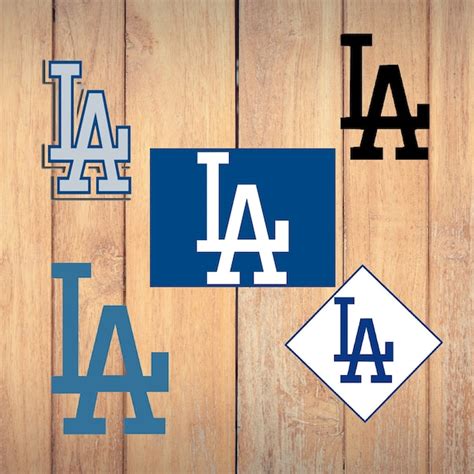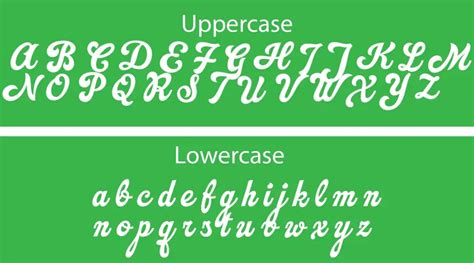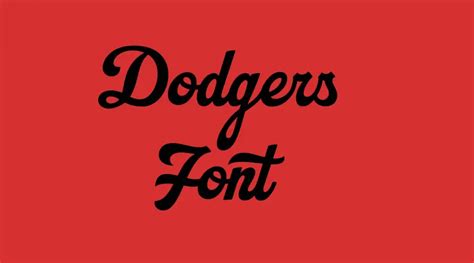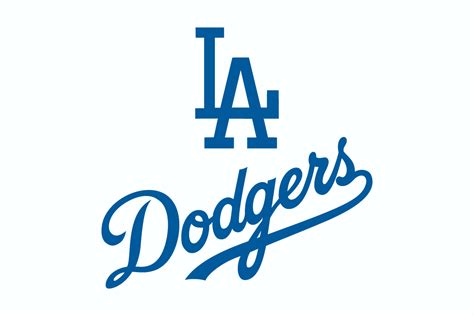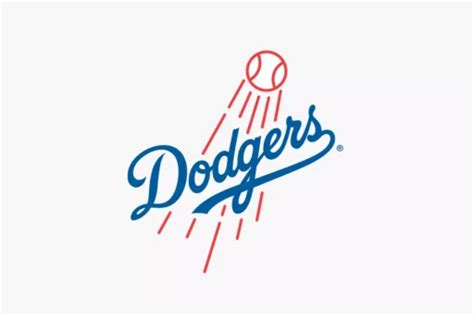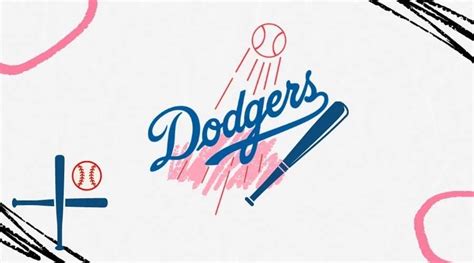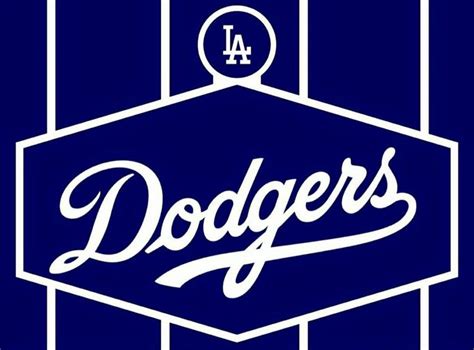
LOS ANGELES DODGERS FONT
The Los Angeles Dodgers have a rich history and a unique visual identity, which extends to their logo and branding. One of the key elements that contribute to this identity is the font used in their logo and various marketing materials. The Los Angeles Dodgers font is an essential component of the team's visual branding, helping to establish a strong and recognizable image.
The font used by the Dodgers is a custom-designed typeface that captures the team's spirit and heritage. It is a bold and modern font that has become synonymous with the franchise. The design incorporates elements that reflect the city of Los Angeles and the team's rich history, making it a distinctive and memorable choice.
The font is not just a visual element but also serves a practical purpose. It is designed to be highly legible, ensuring that the team's name and logo are easily readable across various media, from large billboards to small merchandise items. This legibility is crucial for building brand recognition and creating a strong visual connection with fans.
One of the key benefits of the Los Angeles Dodgers font is its versatility. It can be used in a wide range of applications, from official team communications to fan-centric merchandise. The font's design allows for easy adaptation to different sizes and formats, making it a flexible choice for the team's branding needs.
In summary, the Los Angeles Dodgers font is a carefully crafted element of the team's visual identity, combining a unique design with practical considerations. It plays a significant role in establishing the Dodgers as a prominent and recognizable brand in Major League Baseball and beyond.